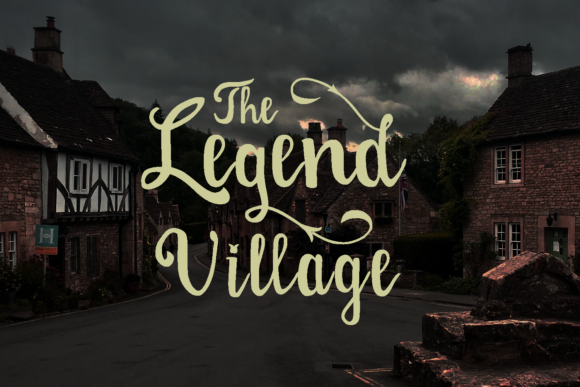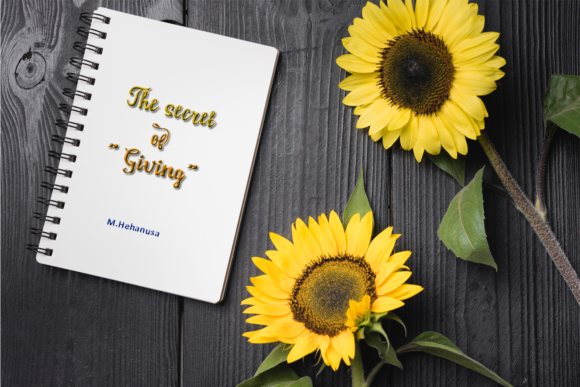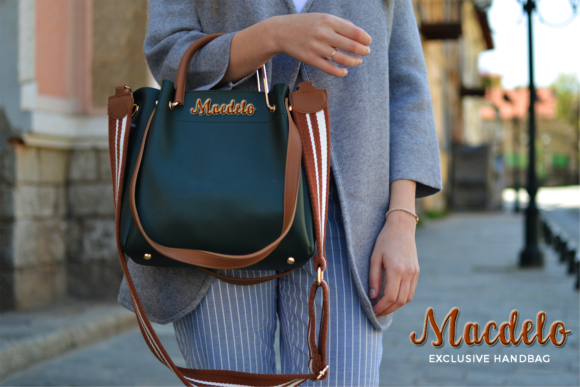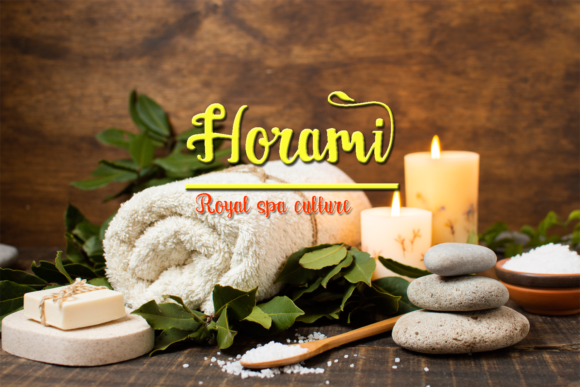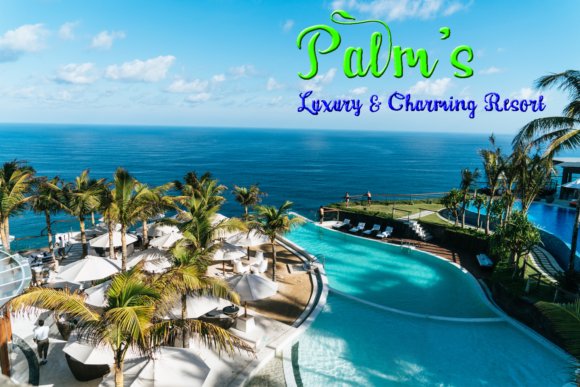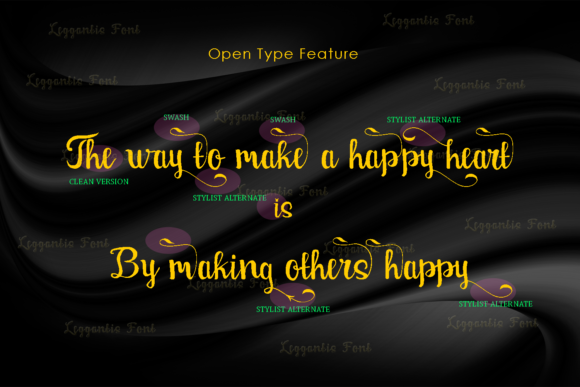
Introduction to Leganttis Font
Leganttis is a playful and cool script font with a sweet feel.
Use it to turn any design project into a masterpiece .
Key Features of Leganttis Font
Why Choose Leganttis Font?
Leganttis Font offers exceptional quality and versatility, making it a valuable addition to your design toolkit. Whether you’re creating for personal projects or commercial use, Leganttis Font delivers professional results.